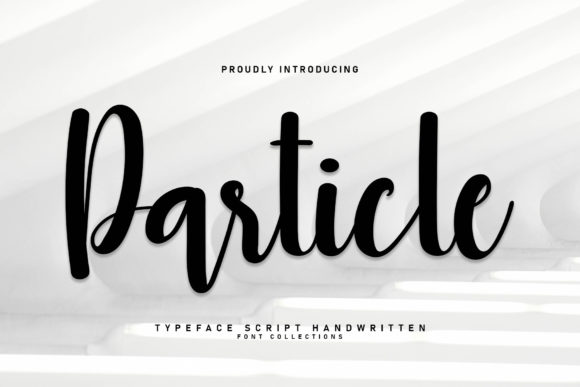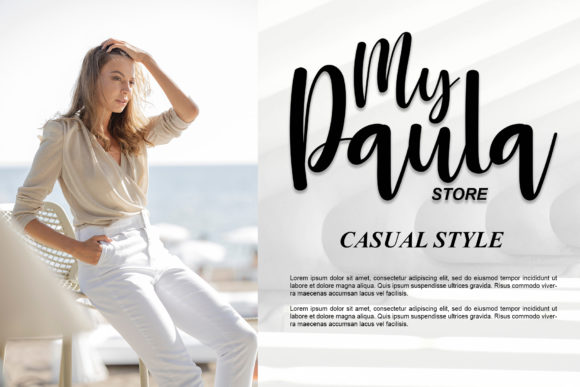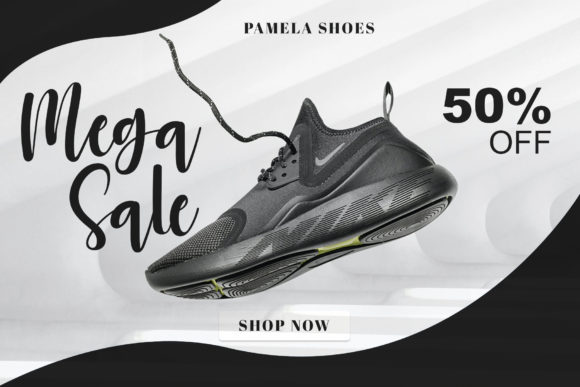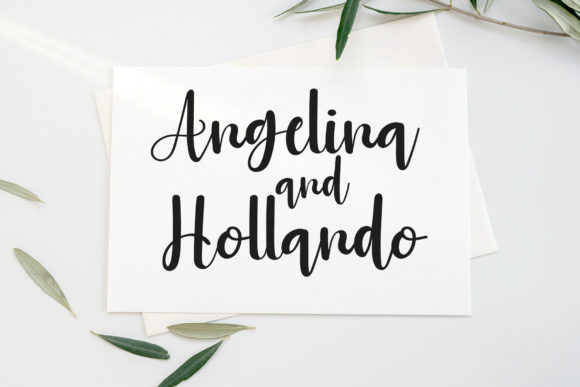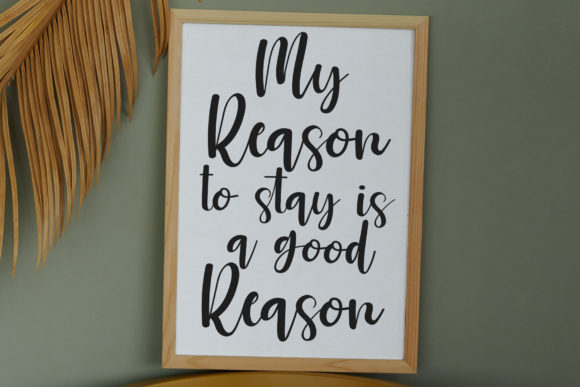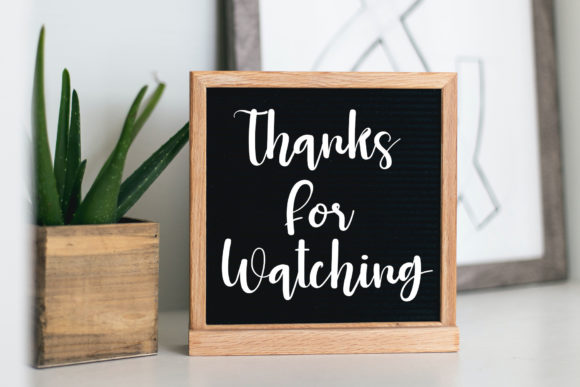
Particle Font
About Particle Font
“Particle” stands as a chic and refined script font that radiates sophistication and elegance. With its stylish alternates and ligatures, this font is the epitome of versatility, making it an impeccable choice for a wide variety of projects.
The allure of “Particle” lies in its ability to convey a sense of stylish refinement. Its sleek lines and intricate design elements add a touch of class to any project it graces. This font seamlessly blends both modernity and timeless charm, allowing it to adapt to diverse design aesthetics.
The availability of stylish alternates and ligatures enhances the font’s adaptability. Whether used for branding, invitations, logos, or any creative endeavor, “Particle” ensures that your design stands out with its distinct and refined appearance.
Incorporating “Particle” into your design projects means embracing its chic and refined attributes. By leveraging its unique charm, you’re infusing your creations with a touch of sophistication and style. This font becomes an essential tool for enhancing the visual appeal of your work, ensuring it resonates effectively with your intended audience across various design applications.